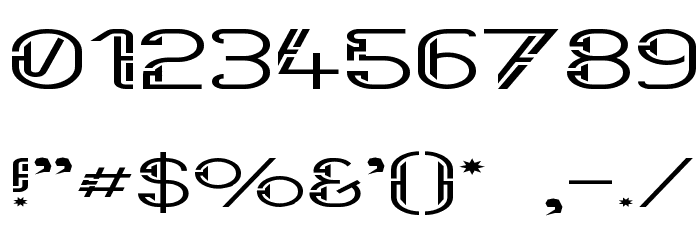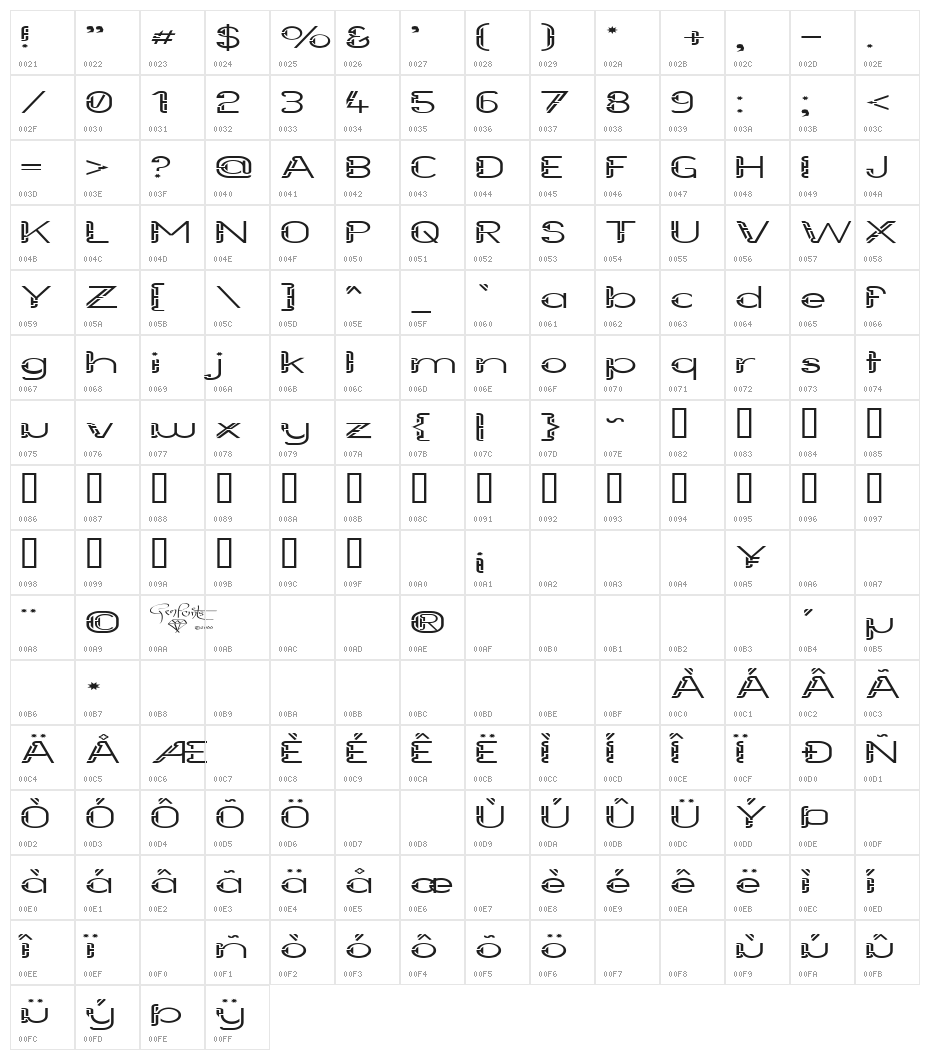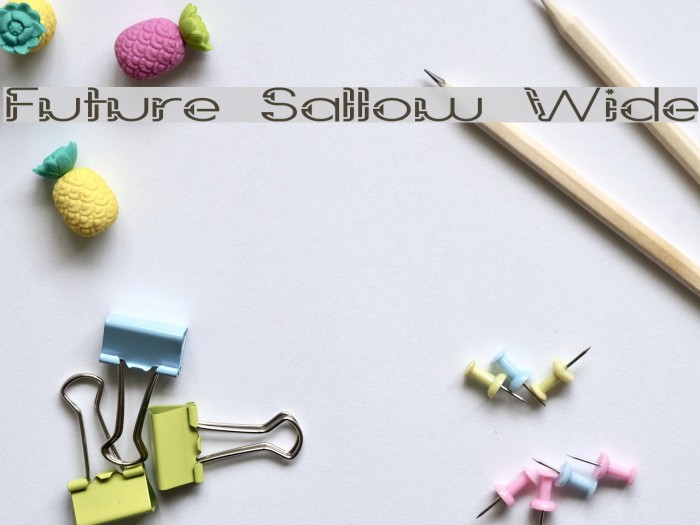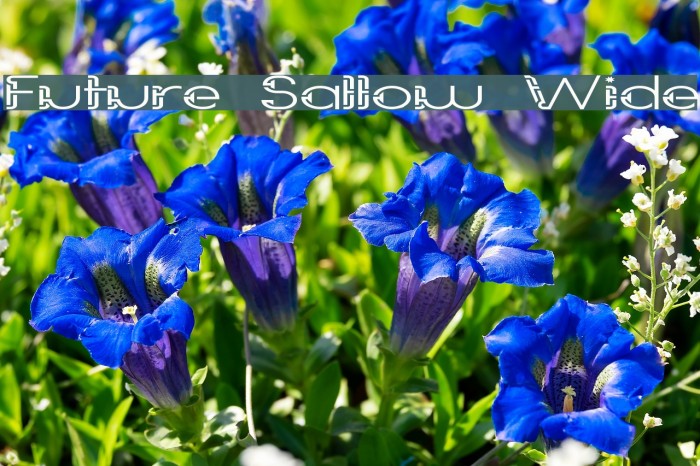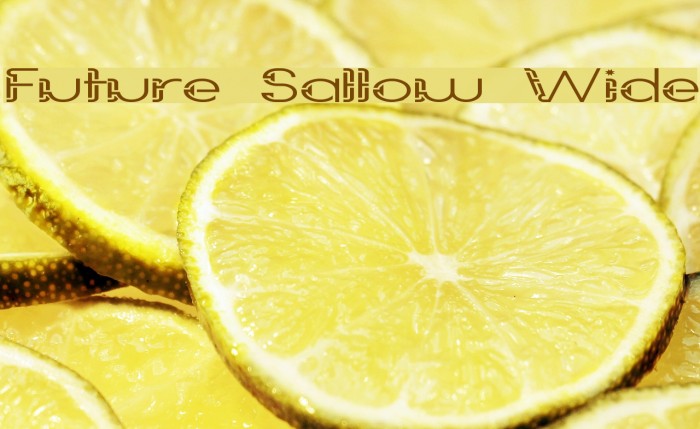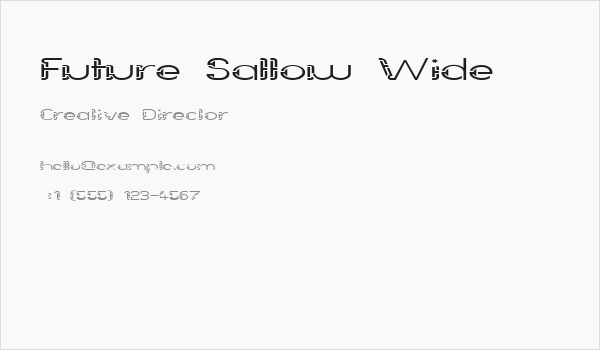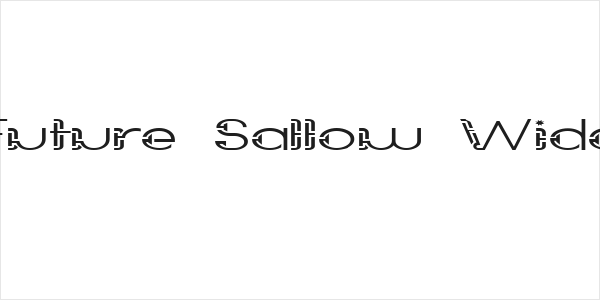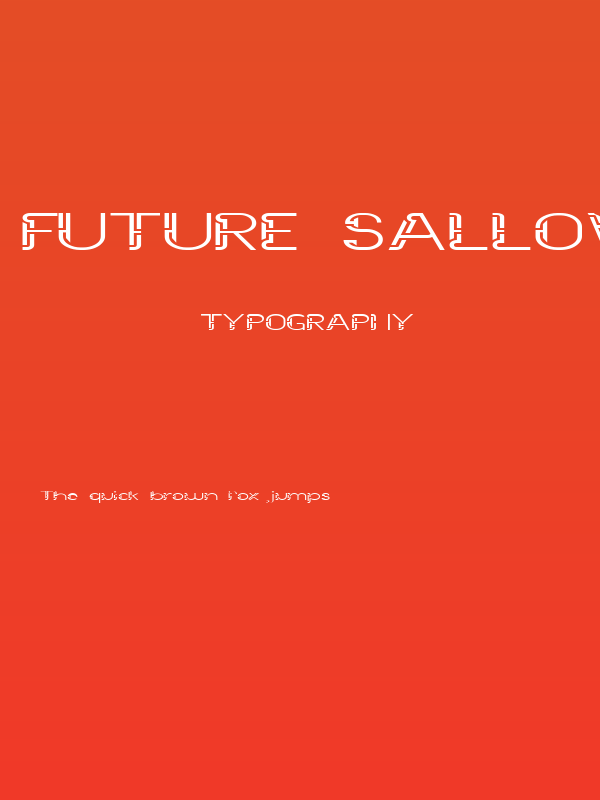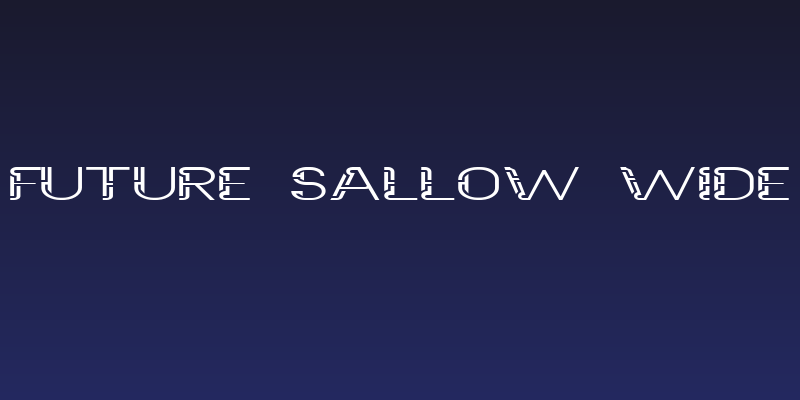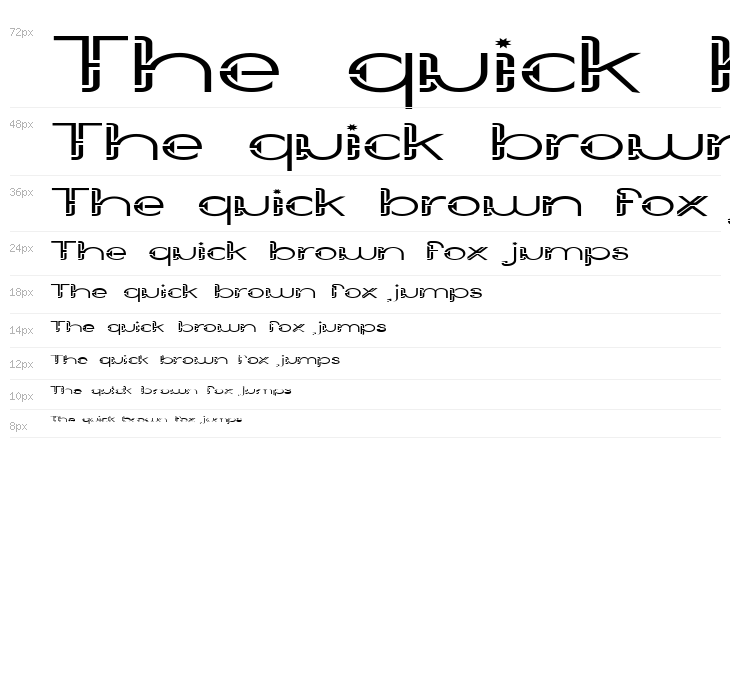
Future Sallow Wide Font
Future Sallow Wide Description
This font features a futuristic and geometric design with a unique blend of sharp angles and smooth curves. The characters are constructed with a distinct, hollow style that incorporates both solid and outlined elements, creating a dynamic and eye-catching appearance. The uppercase letters exhibit a bold and structured form, while the lowercase letters maintain a consistent style with slightly softer edges. Numbers and special characters follow the same design principles, ensuring uniformity across all glyphs. This font's innovative style makes it ideal for projects that require a modern and technological aesthetic.